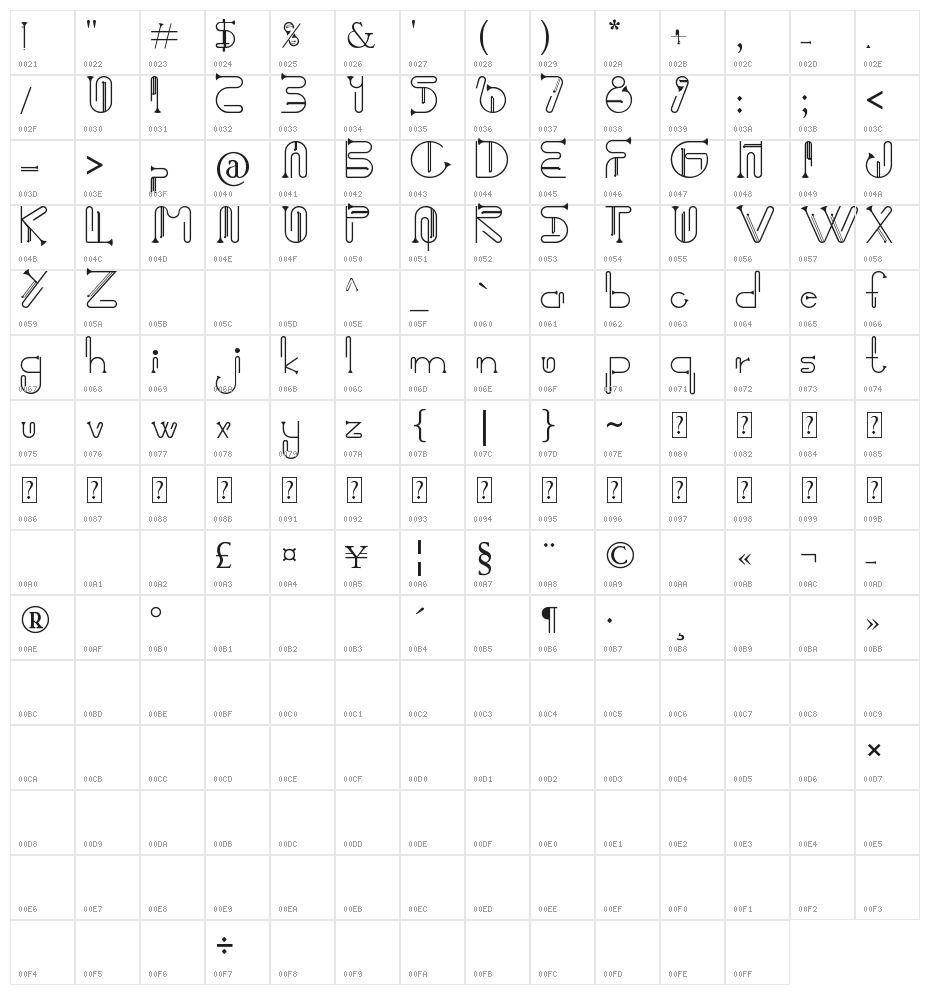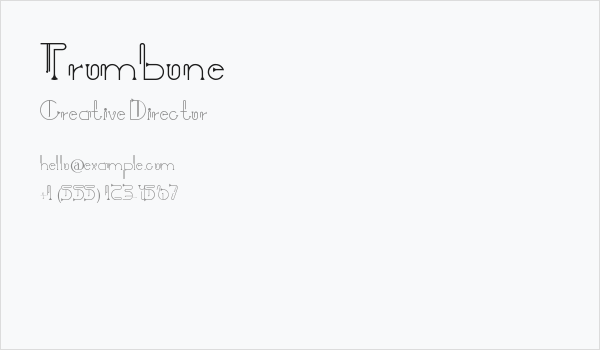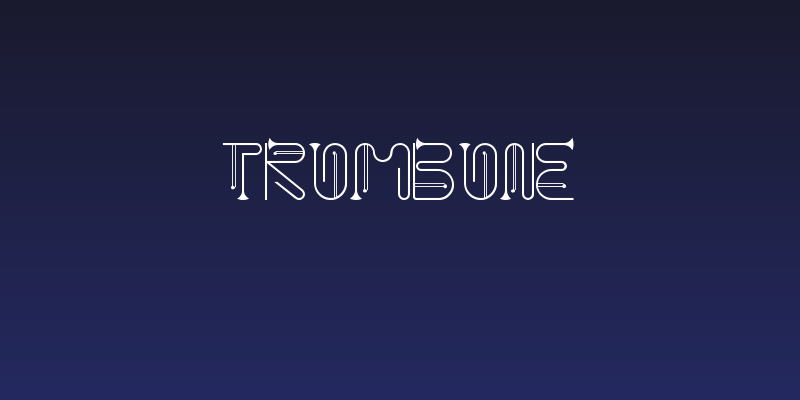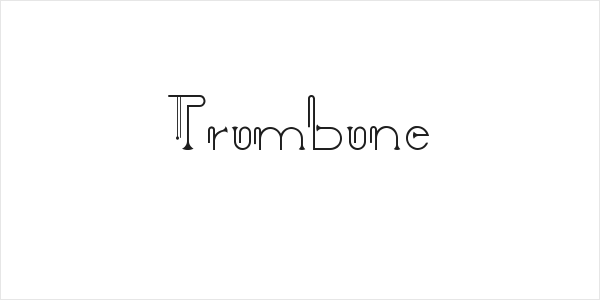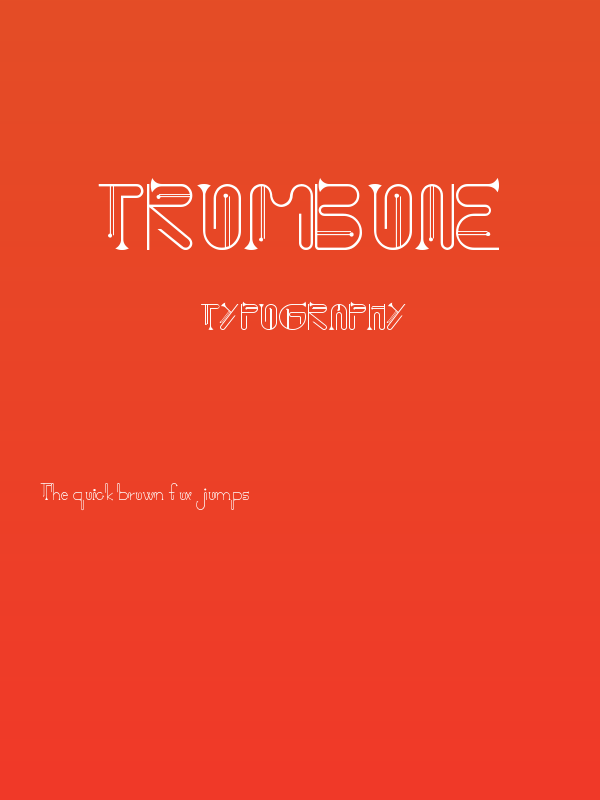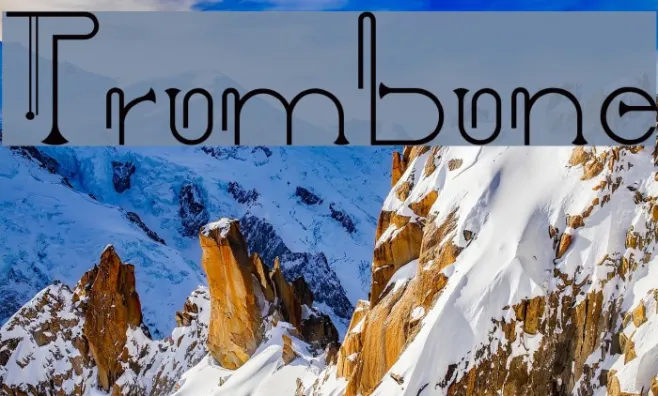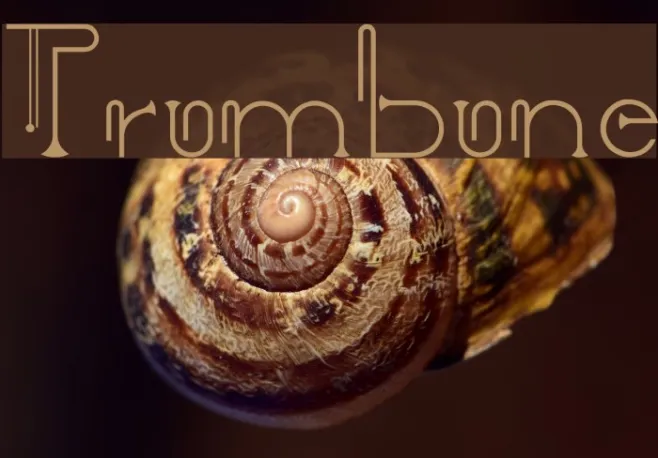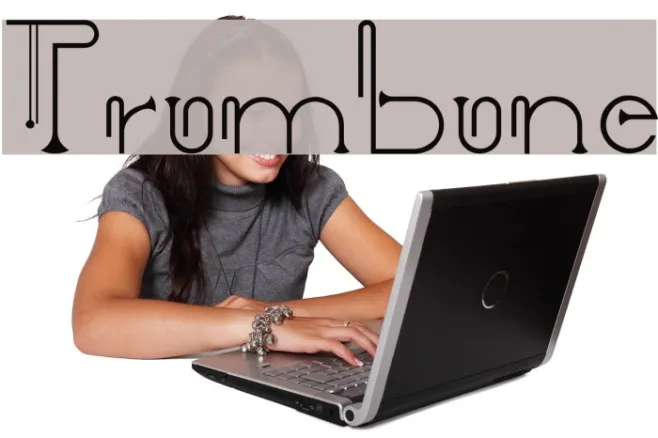
Trombone Font
Trombone Description
This font features a unique and artistic design with a musical theme, reminiscent of trombone shapes and elements. The characters are constructed with a combination of thin and thick strokes, creating a dynamic and playful appearance. The uppercase letters have a bold presence with intricate detailing, while the lowercase letters maintain a more streamlined and cohesive look. Numbers and special characters follow the same thematic style, adding to the overall consistency. This font stands out with its decorative elements, making it ideal for creative and expressive projects.
TROMBONE UPPERCASE
TROMBONE LOWERCASE
TROMBONE OTHER CHARS
| Use Case | Logos, Posters, Creative Design |
| Proposed Projects | Ideal for music-related branding, concert posters, album covers, and creative design projects. |